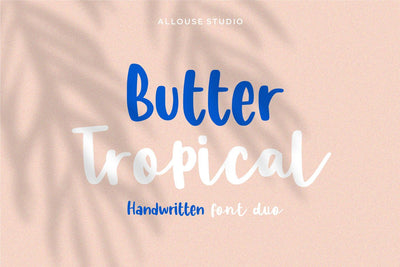
Butter Tropical - Handwritten Font Duo
Proudly Presenting, Butter Tropical a Handwritten Font Duo Original and Script.
Butter Tropical is perfect for any tittle, logo, product packaging, branding project, megazine, social media, wedding, or just used to express words above the background.